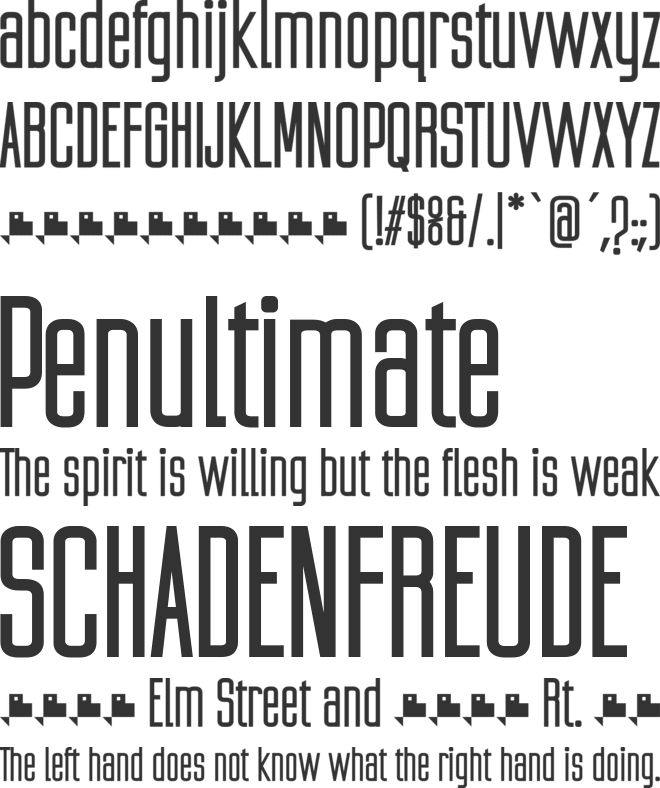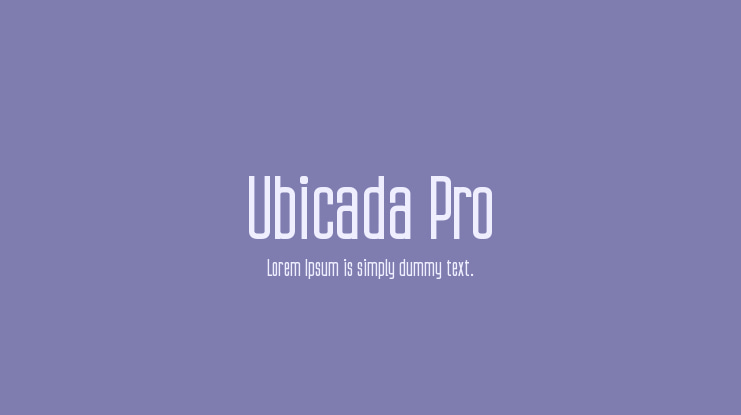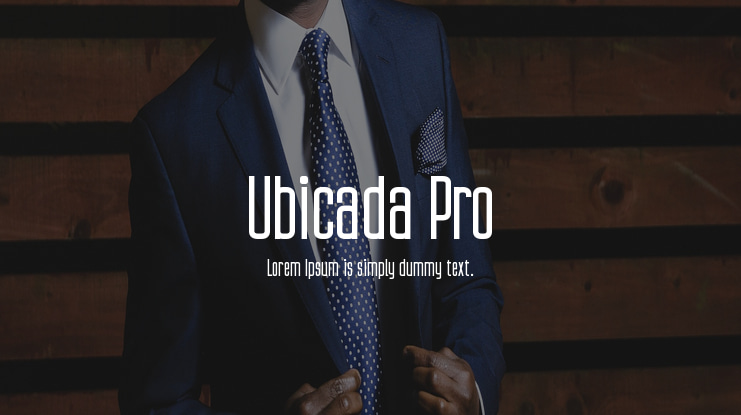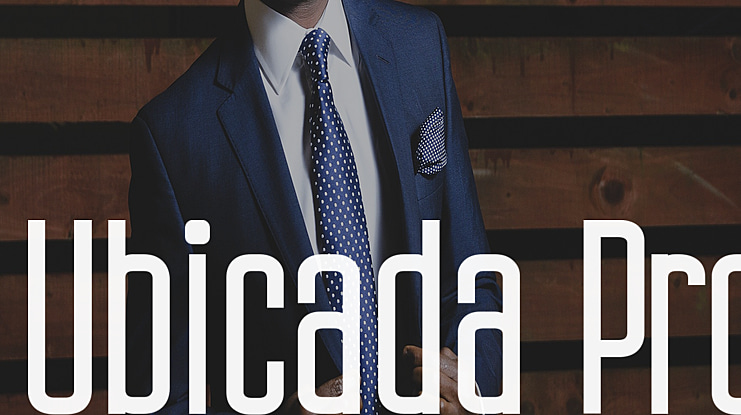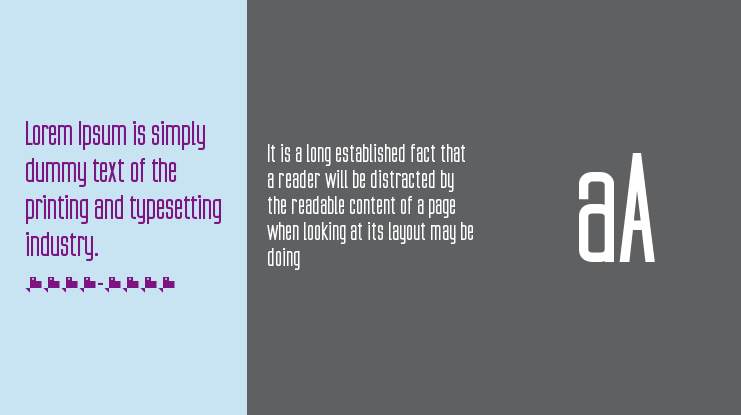
Ubicada Pro Font Family
Ubicada is a condensed and geometric sans serif typeface in version Regular & Bold
The commercial version has 600 glyphs (Latin Extended) Open Type includes functions for standard ligatures, alternate letters, numbers and money symbols in small caps, old style numbers, numerators, denominators, fractions, and the Greek alphabet.